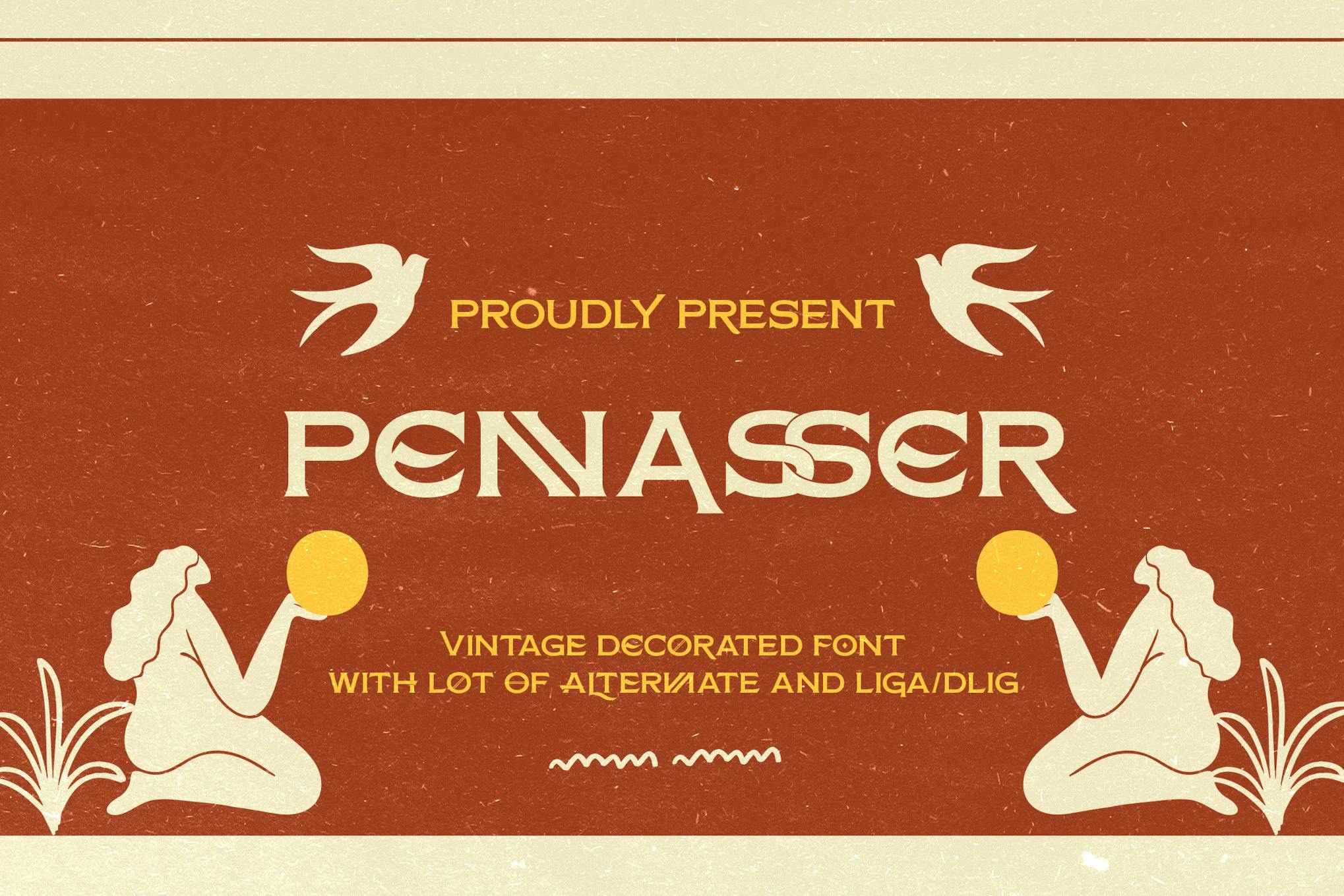
Penasser Font
Penasser Font contemplates philosophical publication designs, thoughtful journal layouts, reflective memoir covers, introspective therapy center branding, meditative book series, contemplative academic papers, pensive poetry collections, mindful wellness materials, reflective art gallery exhibitions, thoughtful counseling services, deep thinking retreat centers, and intellectual marketing campaigns where contemplative thinking and reflective wisdom create profound communication experiences.
This thoughtful typeface generates excitement through its perfect embodiment of contemplative reflection and philosophical depth that creates typography encouraging deep thinking and mindful consideration. Penasser Font captures the essence of reflective thought with its carefully measured letterforms that suggest the deliberate pace of philosophical contemplation and the thoughtful rhythm of intellectual discourse. The font's sophisticated design approach incorporates elements that promote careful reading and thoughtful engagement, featuring balanced proportions and gentle curves that naturally slow down the reading experience and encourage deeper reflection. Its distinctive character embodies the wisdom, patience, and intellectual curiosity that define authentic philosophical inquiry and contemplative practice.
The Penasser Font family includes multiple contemplative variations such as Regular, Light, Medium, Bold, and Reflective versions, each maintaining the font's characteristic thoughtful quality while offering different levels of philosophical impact. The collection features meditative spacing, contemplative rhythm patterns, and reflective textures that enhance its intellectual aesthetic. Additional elements include philosophical symbols, thinking ornaments, contemplative decorative borders, and wisdom-inspired flourishes that reinforce the font's connection to deep thought and intellectual reflection.
Academic institutions and contemplative organizations consistently select Penasser Font Free Download for projects requiring typography that communicates intellectual depth and encourages thoughtful engagement. This remarkable typeface excels in applications where promoting careful consideration and facilitating deep thinking are essential for meaningful communication. The font's contemplative qualities make it particularly effective for educational institutions, philosophical organizations, and wellness centers targeting audiences who value intellectual depth and reflective thinking.
Whether you're designing academic publications, creating contemplative wellness materials, developing philosophical content, or crafting thoughtful marketing communications, Penasser Font delivers unmatched intellectual authenticity. Its ability to convey wisdom, contemplation, and philosophical depth makes it invaluable for thinkers and educators seeking typography that genuinely supports deep reflection and meaningful discourse. The font's thoughtful presence ensures your designs will communicate the intellectual rigor and contemplative wisdom that define exceptional philosophical communications and reflective learning experiences.